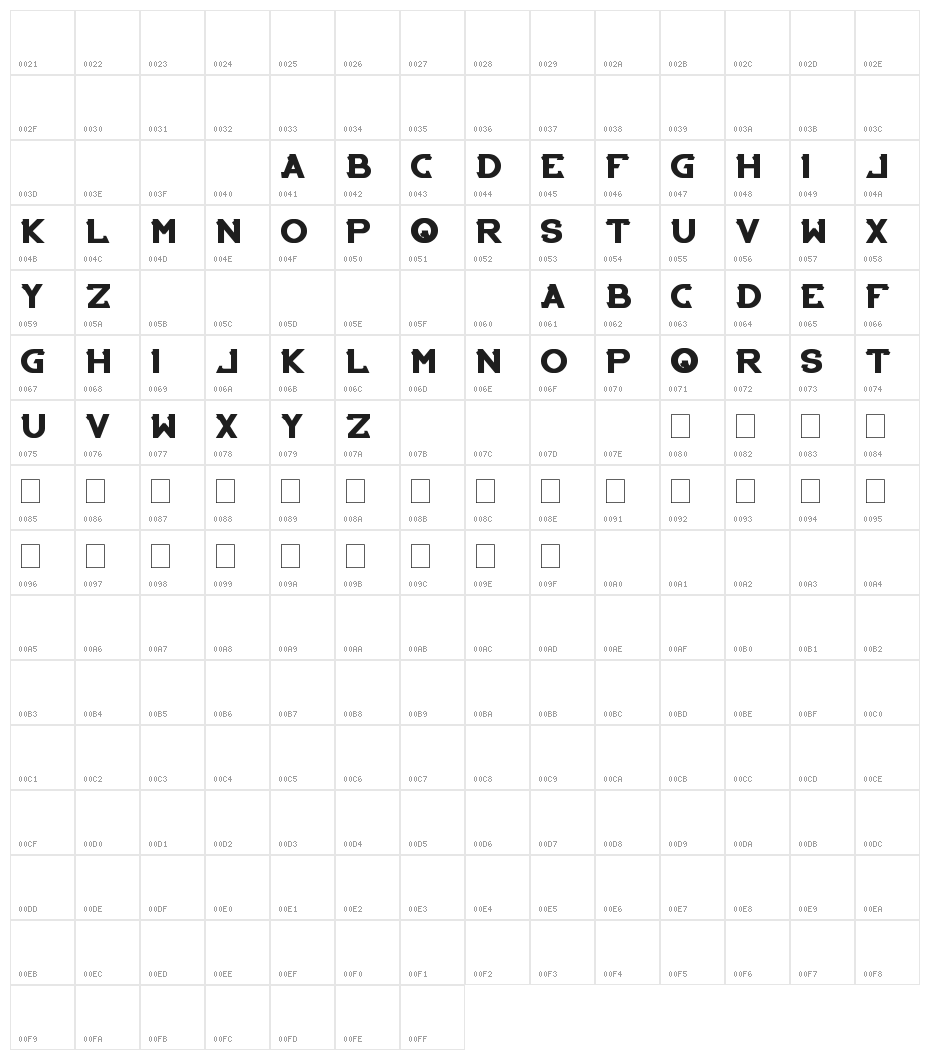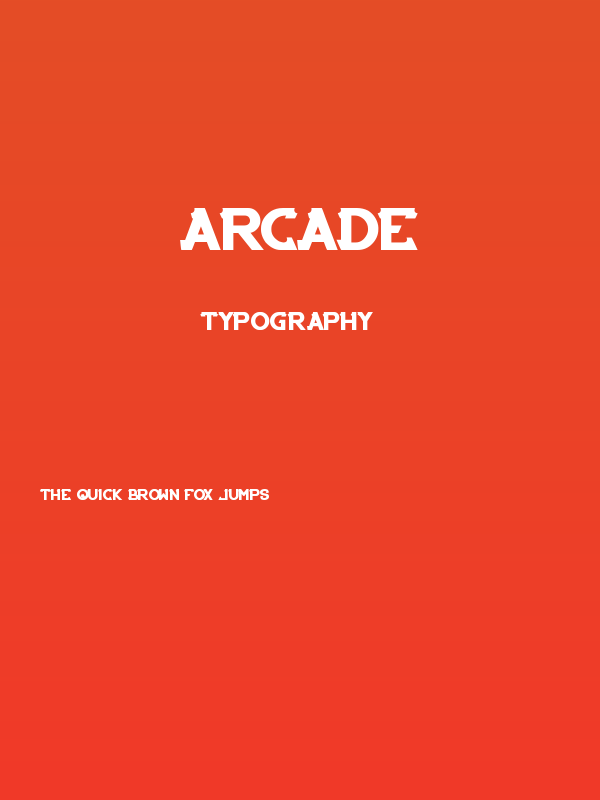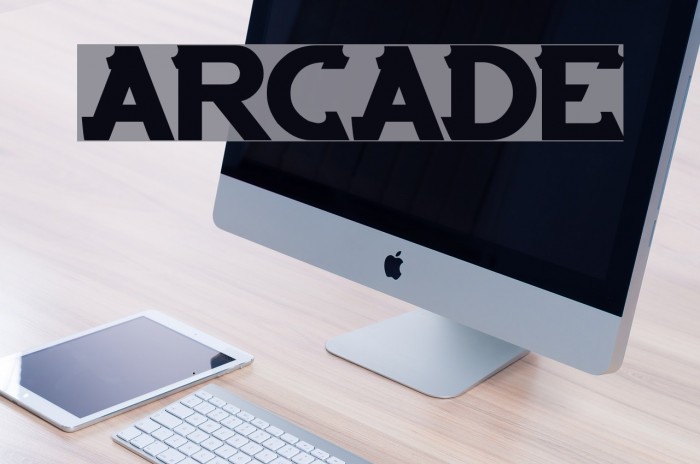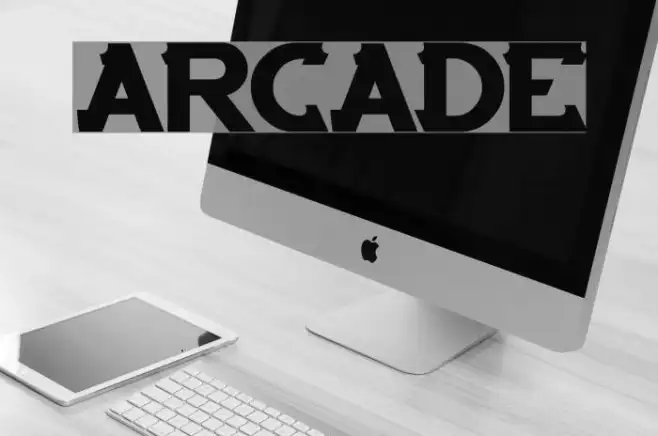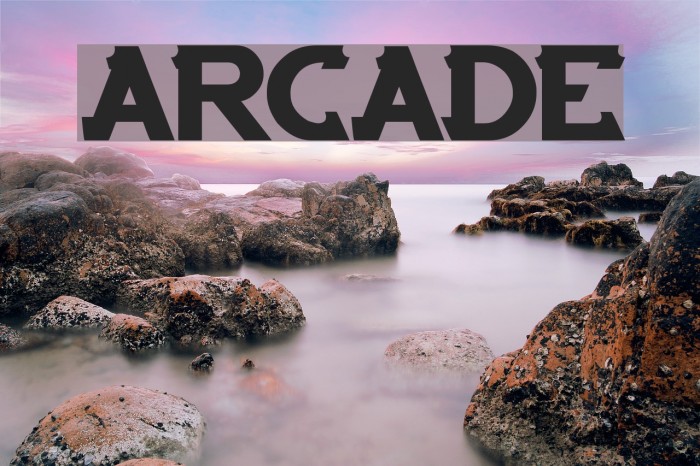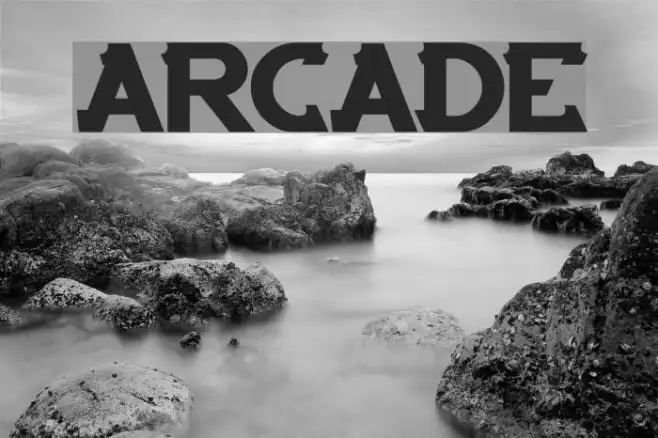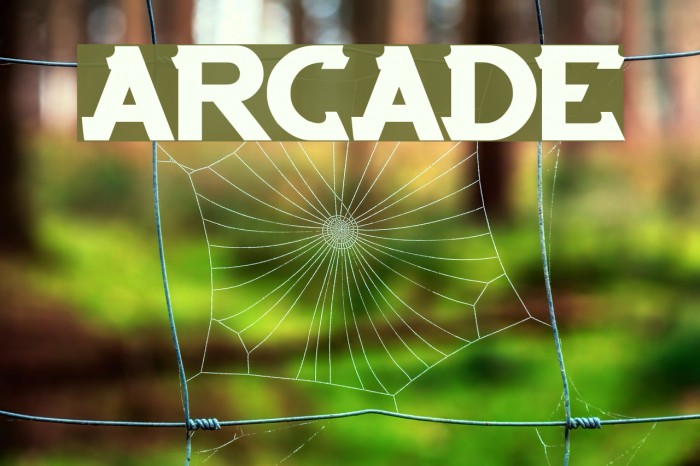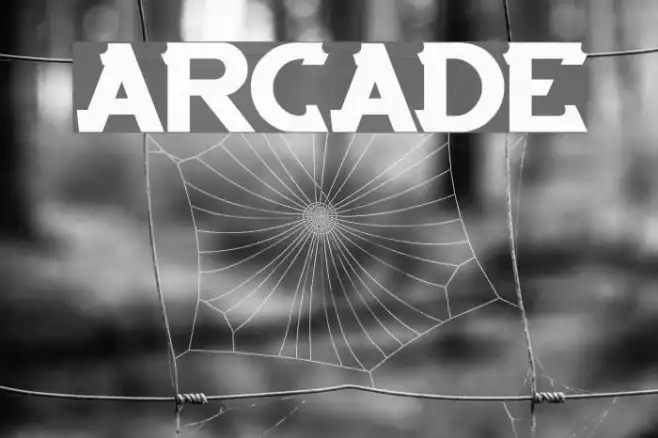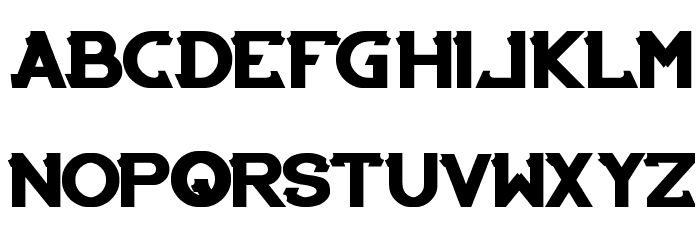
ARCADE Font
ARCADE Description
This font features a bold and geometric style, characterized by its strong, angular lines and distinct cut-out shapes within each letterform. The uppercase letters are uniform in height, creating a cohesive and structured appearance. The design incorporates a futuristic and digital aesthetic, reminiscent of retro arcade games. Its solid and impactful presence makes it suitable for attention-grabbing headlines and titles. The font's unique style is both playful and assertive, making it ideal for projects that require a bold statement.
| Overall Style | Modern, Retro |
| Proposed Projects | Ideal for video game titles, posters, branding for tech companies, and any project needing a retro-futuristic touch. |